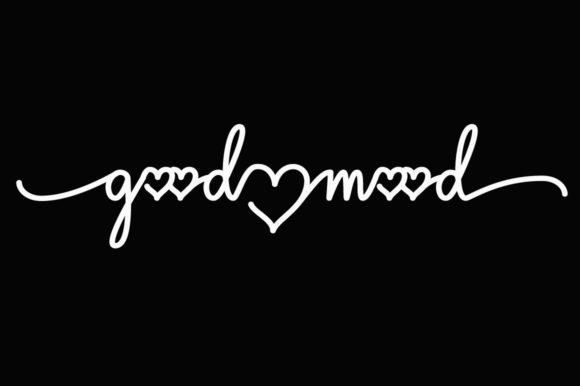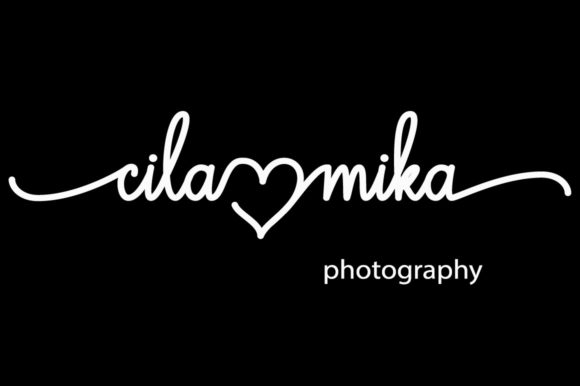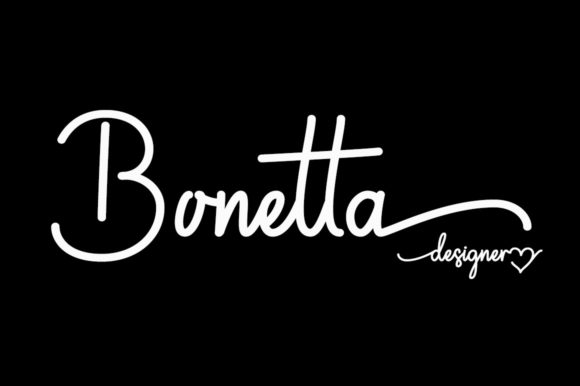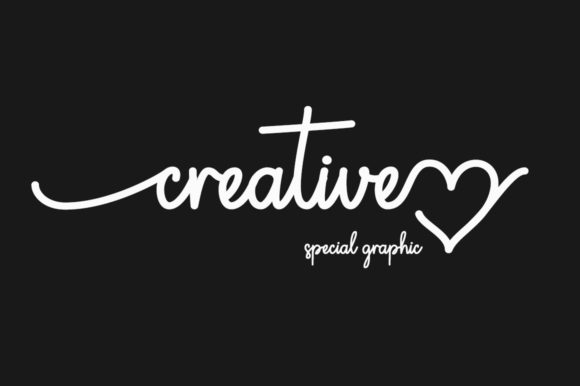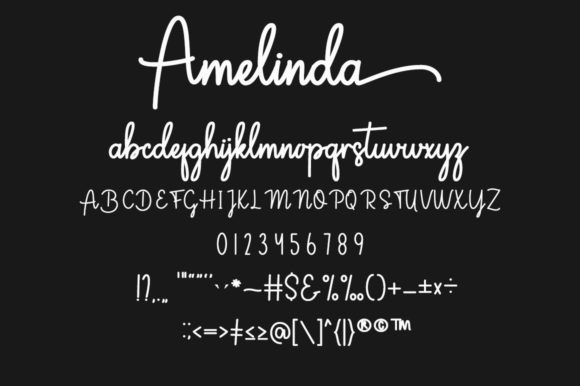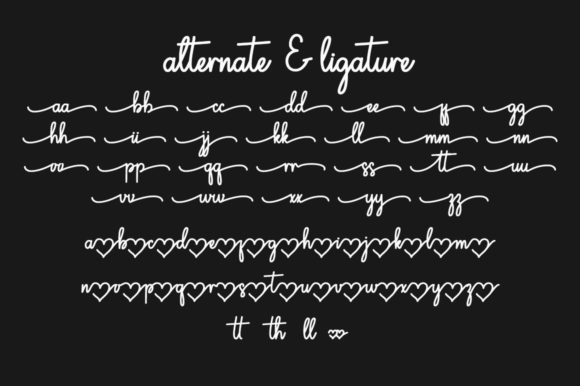
Introducing Amelinda Font: Elevate Your Designs with Elegance and Sophistication
In the world of typography, a font can make or break a design. For designers and crafters seeking to add a touch of class and modernity to their work, Amelinda Font is an exceptional choice. This beautiful and delicate script font is designed to bring an air of elegance and sophistication to various design projects, from logos and branding to invitations, stationery, wedding designs, and social media posts.
The Characteristics of Amelinda Font
Amelinda Font boasts a classy, elegant, and modern look that sets it apart from other script fonts. Its delicate strokes and refined lines make it perfect for designs that require a touch of sophistication. The font’s versatility allows it to be used across various platforms and applications, making it a valuable addition to any designer’s toolkit.
What Makes Amelinda Font Special?
One of the standout features of Amelinda Font is its PUA (Private Use Area) encoding. This means that users can easily access all the glyphs and swashes, allowing for greater creative flexibility and customization. With PUA encoding, designers can effortlessly navigate the font’s extensive character set, including alternates, ligatures, and ornaments, to create unique and eye-catching designs.
Use Cases for Amelinda Font
The possibilities for using Amelinda Font are endless. Here are some ideas to get you started:
- Logos and Branding: Create a lasting impression with a custom logo that exudes elegance and sophistication.
- Invitations and Stationery: Add a touch of refinement to your invitations, greeting cards, and stationery with Amelinda Font.
- Wedding Designs: Make your wedding designs, such as invitations, programs, and place cards, truly unforgettable with this beautiful script font.
- Social Media Posts: Elevate your social media presence with eye-catching graphics and posts that showcase your brand’s personality.
Amelinda Font offers numerous benefits for designers and crafters, including:
- Time-Saving: With its extensive character set and PUA encoding, Amelinda Font saves designers time and effort, allowing them to focus on the creative process.
- Versatility: The font’s versatility makes it suitable for a wide range of design applications, from digital to print.
Tips for Getting the Most Out of Amelinda Font
To maximize the potential of Amelinda Font, consider the following tips:
- Experiment with Pairings: Combine Amelinda Font with other fonts to create unique and visually appealing designs.
- Play with Swashes: Take advantage of the font’s swashes and glyphs to add a personal touch to your designs.
- Adjust Font Sizes: Experiment with different font sizes to create visual hierarchy and emphasis in your designs.
Amelinda Font is a stunning script font that offers designers and crafters a world of creative possibilities. With its elegant and modern look, PUA encoding, and versatility, it’s the perfect choice for a wide range of design applications. Whether you’re creating logos, invitations, or social media posts, Amelinda Font is sure to elevate your designs and leave a lasting impression.